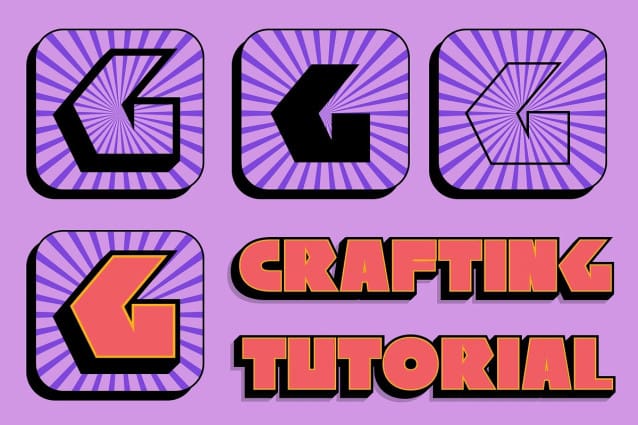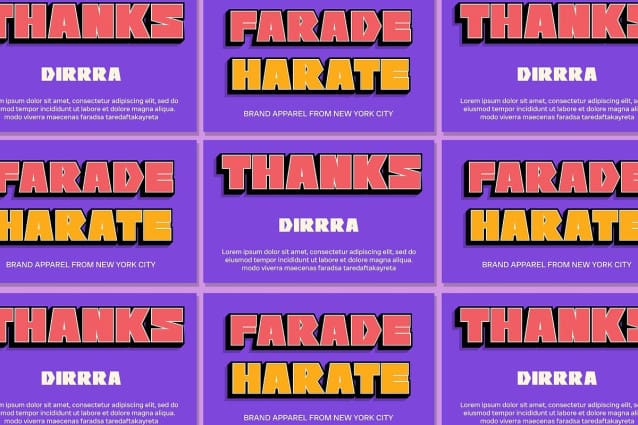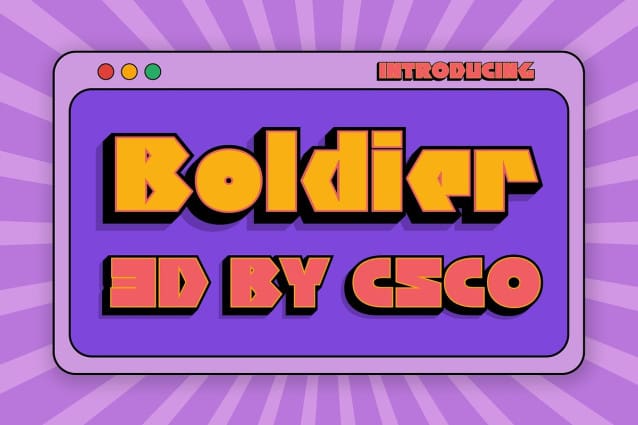
CS Boldier 3D Font
CS Boldier 3D Font is a sans-serif font with a bold form and 3D effect, perfect for designs aiming to emphasize text with a strong, attractive, and dimensional appearance. Its bold design adds a sense of depth and prominence to any project, ensuring your message is bold and impactful.
Ideal for Various Designs Perfect for logos, titles, promotional graphics, and other projects, CS Boldier 3D ensures your text stands out and commands attention. Its 3D effect enhances the visual appeal, making it an excellent choice for designs that require striking and impactful text.
Versatile and Eye-Catching Despite its bold appearance, this CS 3D font remains versatile and eye-catching. Its sans-serif format makes it suitable for a wide range of projects where a font that combines strength and attractiveness is essential for making a statement.
Perfect for Adding a Dimensional Touch CS Boldier 3D is ideal for projects requiring a font with a dimensional touch. Whether you’re designing a logo, title, or promotional graphic, this font will undoubtedly add a distinct and memorable element to your designs.